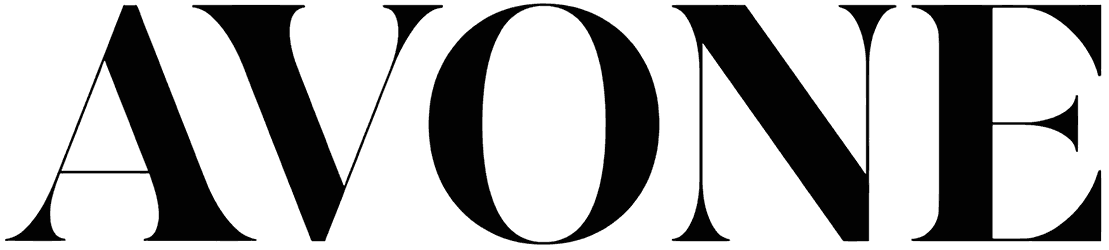
Thryromanes Font
There is nothing better than a serif font such as Thryromanes for designing posters, logos, business cards, brochures, gift cards, announcements, and invitations.
This majestic font is designed with a certain elegance and precision, thus, it can convey a sense of trustworthiness, credibility, recognition, and respect to customers and surprise them with the high quality that gives work.